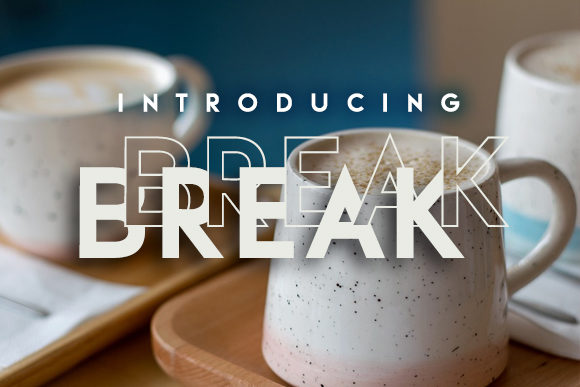
Introducing Break Font: Unleash Your Creativity with this Double-Layered Display Font
Are you tired of using the same old fonts in your designs? Look no further! Break Font is here to revolutionize your typography with its unique double-layered display style. This inspiring font is perfect for designers and crafters who want to add a touch of personality to their work. In this article, we’ll dive into the world of Break Font and explore its amazing variations, so you can have fun and get creative!
What is Break Font?
Break Font is a double-layered display font that boasts a distinctive style and visual appearance. Its two-layered design allows for a wide range of customization options, making it perfect for headlines, titles, and other display text. Whether you’re working on a logo, brochure, or social media graphic, Break Font is sure to make your text stand out.
Key Features of Break Font
- Double-Layered Design: Break Font features two layers of text, allowing you to create stunning effects by combining different colors, textures, and styles.
- Unique Style: The font’s distinctive style sets it apart from other display fonts, making it perfect for designers who want to add a touch of personality to their work.
- Highly Customizable: With Break Font, you can experiment with different layer combinations, colors, and textures to create a look that’s all your own.
Exploring the Amazing Variations of Break Font
One of the best things about Break Font is its versatility. With a range of variations to choose from, you can create unique and eye-catching designs that showcase your creativity. Here are just a few examples of what you can do with Break Font:
- Monochromatic Schemes: Use different shades of the same color to create a cohesive and sophisticated look.
- Contrasting Colors: Combine bold and bright colors to create a striking effect.
- Texture and Patterns: Add texture and patterns to your design by using different layer combinations and styles.
- 3D Effects: Use Break Font’s double-layered design to create stunning 3D effects that pop off the page.
Tips and Tricks for Getting the Most out of Break Font
To help you get started with Break Font, here are a few tips and tricks to keep in mind:
- Experiment with Different Layer Combinations: Don’t be afraid to try out different layer combinations to see what works best for your design.
- Play with Color: Break Font is all about color, so don’t be shy about experimenting with different hues and shades.
- Use it for Headlines and Titles: Break Font is perfect for headlines and titles, so use it to make a statement in your designs.
- Mix and Match with Other Fonts: Break Font pairs well with other fonts, so don’t be afraid to mix and match to create a unique look.